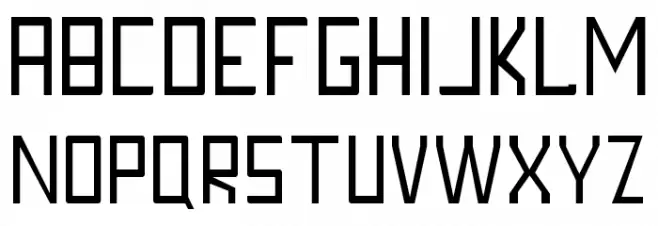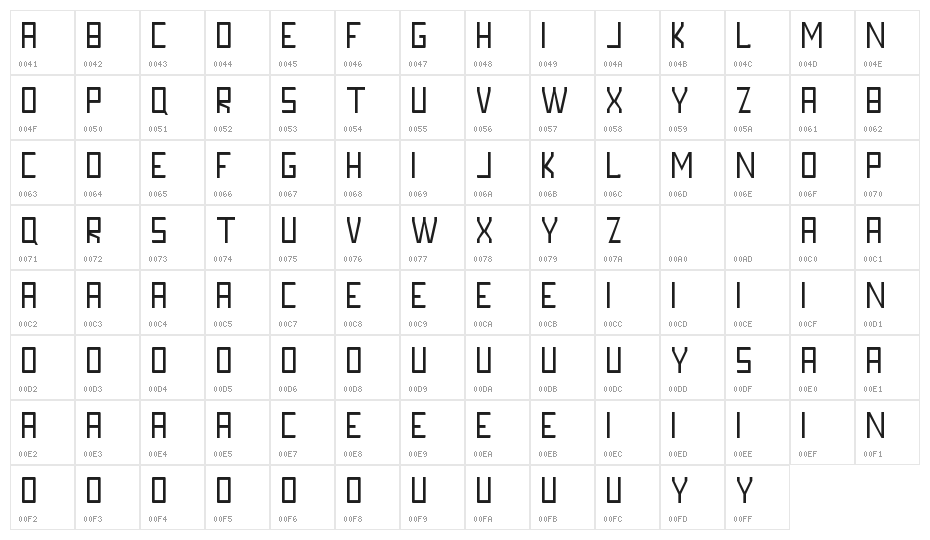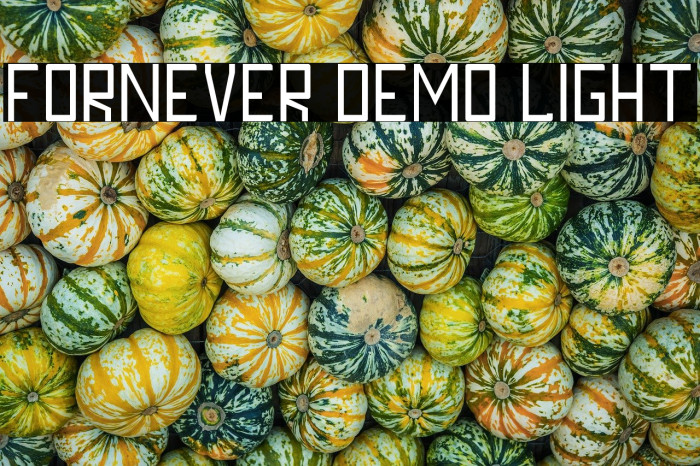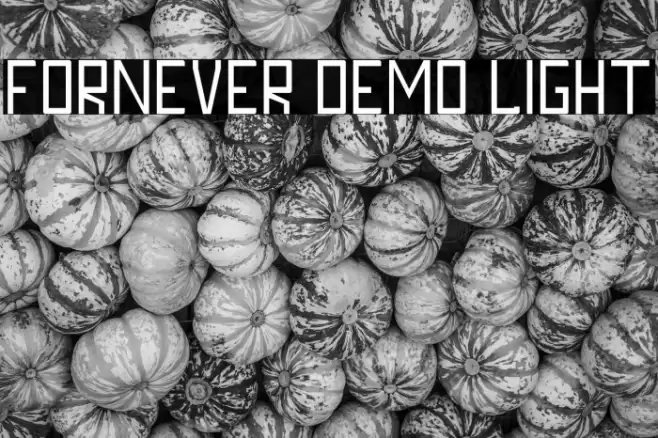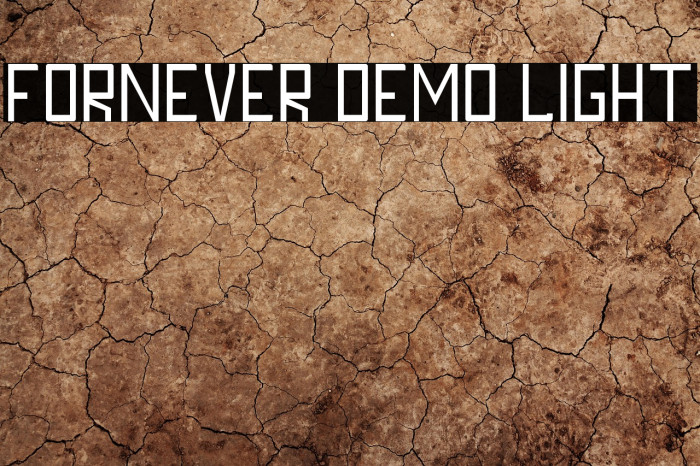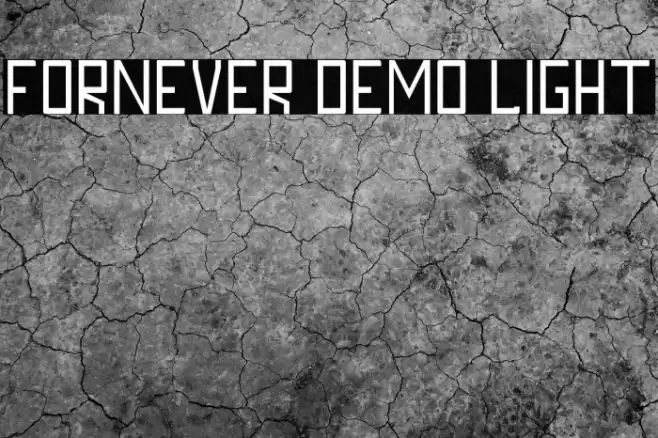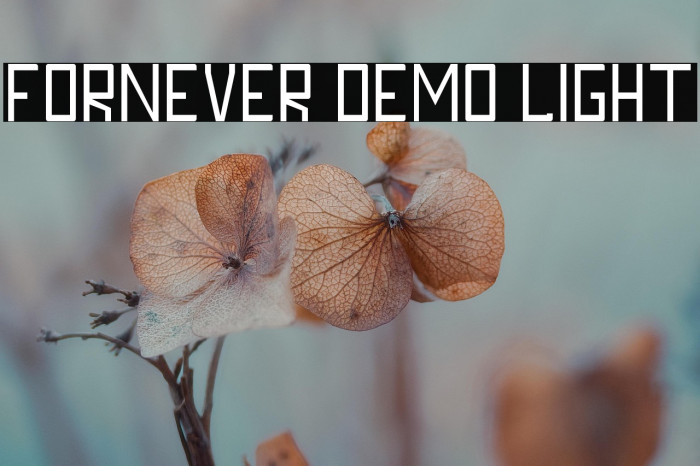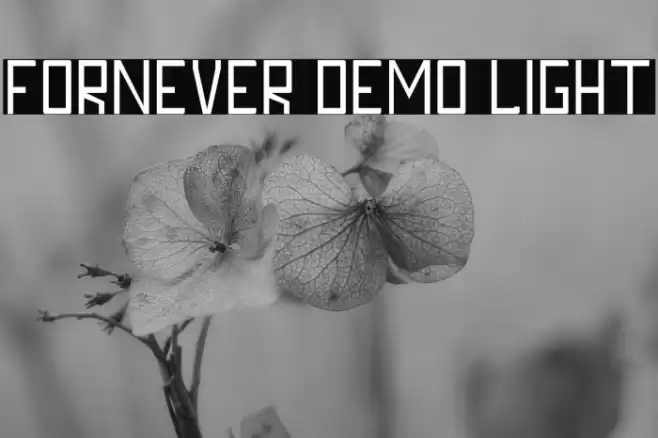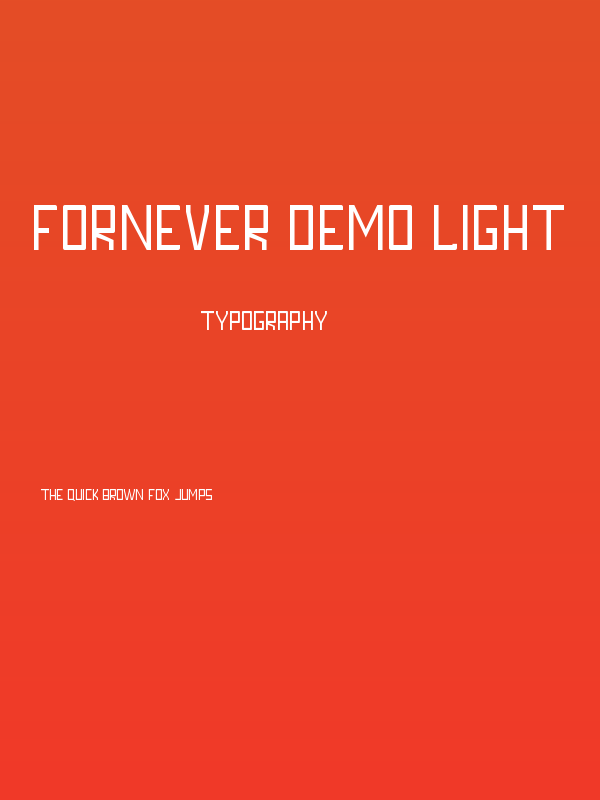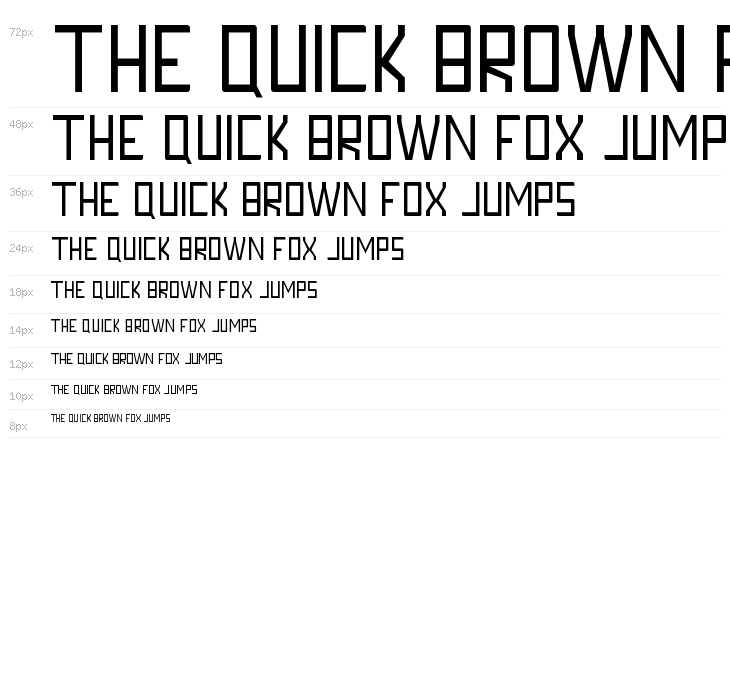
FORNEVER DEMO Light Font
FORNEVER DEMO Light Description
This font features a geometric and modern design with a distinct, angular appearance. The characters are constructed with straight lines and sharp angles, giving it a futuristic and technical feel. The uppercase letters are uniform in height, with a consistent stroke width that adds to its clean and precise look. The font maintains a balanced structure, making it suitable for various design applications where a contemporary and edgy style is desired. Its simplicity and clarity make it highly legible, even at smaller sizes, while the unique character shapes add a touch of personality.
| Proposed Projects | Ideal for technology branding, modern posters, digital interfaces, and futuristic designs. |